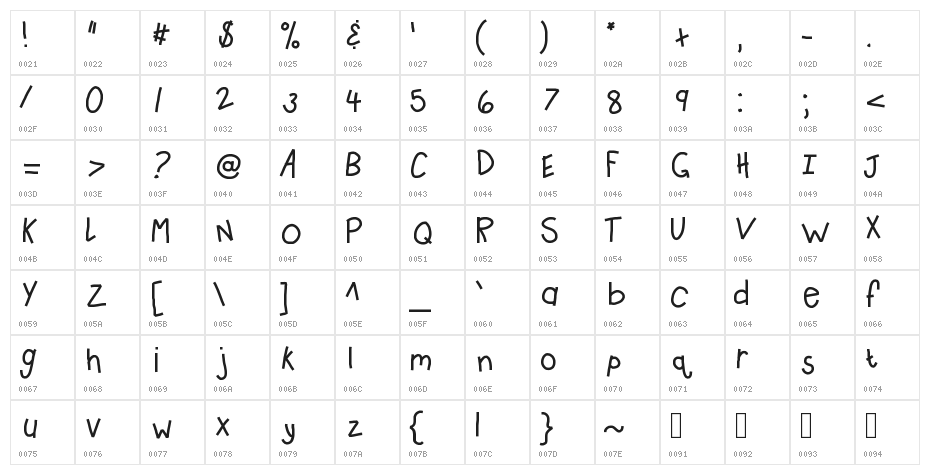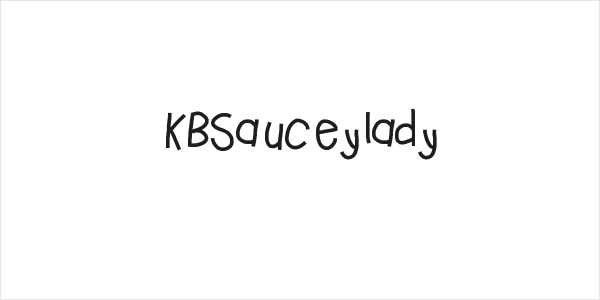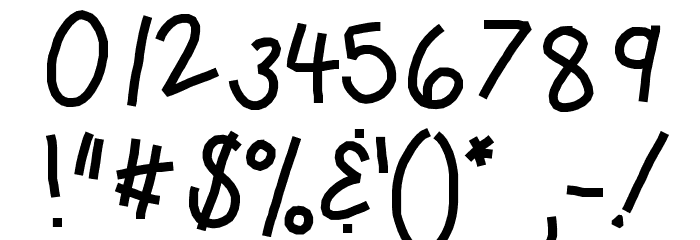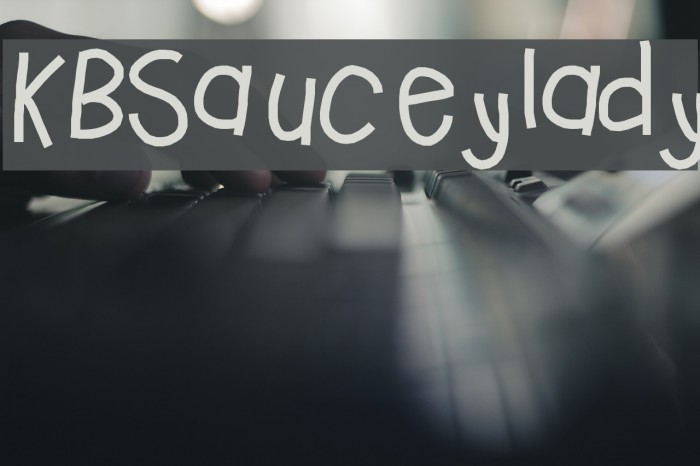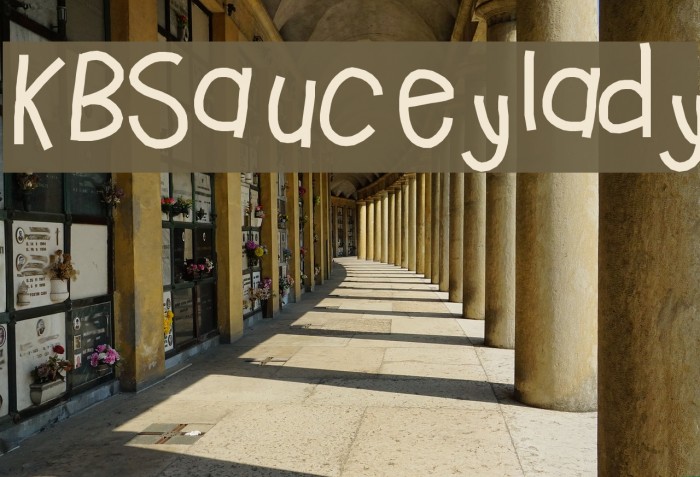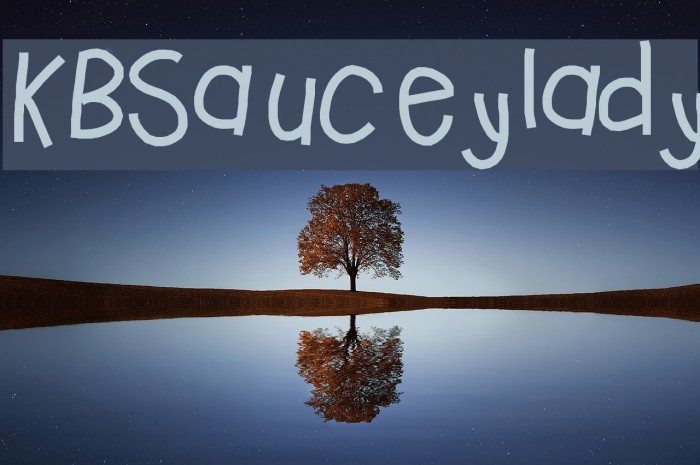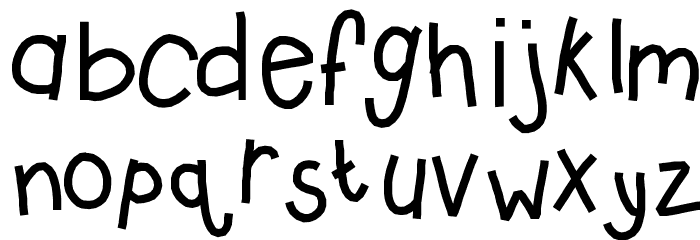
KBSauceylady Font
KBSauceylady Description
This playful and quirky font features a handwritten style with irregular strokes and a casual appearance. The letters are slightly tilted and vary in size, giving it a dynamic and lively feel. The uppercase and lowercase characters maintain a consistent style, with rounded edges and a friendly demeanor. The numbers and special characters are equally whimsical, adding to the overall charm. This font is perfect for projects that require a personal touch or a fun, informal vibe.
Fonts by Khrys Bosland
| Proposed Projects | Ideal for children's books, greeting cards, playful branding, and casual invitations. |